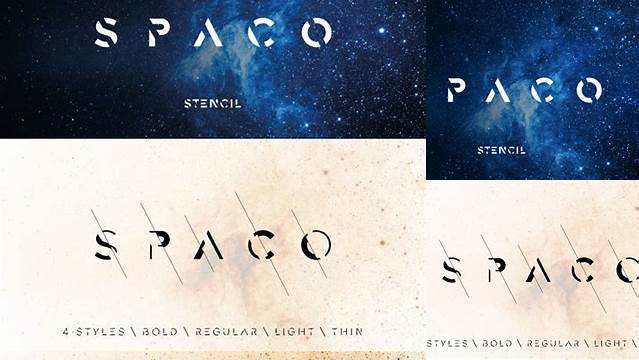
Hey guys! Are you on the hunt for a cool and unique font to spice up your designs? Look no further! In this article, we're diving deep into the world of the Spaco Stencil font, a fantastic typeface that can add a touch of modern flair to any project. We'll explore everything from what makes this font so special to where you can snag it for free. So, buckle up and let's get started!
What is Spaco Stencil Font?
The Spaco Stencil font is a contemporary typeface characterized by its distinctive stencil design. This means that the letters have gaps or breaks in their forms, giving them a unique, industrial, and slightly futuristic look. The font is incredibly versatile, making it a popular choice for a wide range of applications, from branding and advertising to posters and digital designs. Its clean lines and bold appearance ensure readability while adding a touch of creativity.
The Appeal of Stencil Fonts
Stencil fonts, like Spaco, have a rich history and a timeless appeal. They evoke a sense of practicality and functionality, reminiscent of military stencils and industrial markings. This aesthetic makes them particularly well-suited for projects that aim to convey strength, durability, or a sense of history. However, their modern interpretations, like Spaco, also lend themselves beautifully to contemporary designs that require a touch of edginess or innovation.
Why Choose Spaco Stencil Font?
Choosing the right font can make or break a design. The Spaco Stencil font stands out for several reasons. First, its clean and modern design ensures legibility, even in smaller sizes. Second, its unique stencil style adds a distinctive visual element that can help your designs grab attention. Third, it’s versatile enough to work in various contexts, from headlines and logos to body text and captions. Finally, the fact that you can find it for free makes it an incredibly accessible option for designers of all levels.
Integrating Spaco Stencil Font in Your Designs
- Pair it with a clean sans-serif: To balance the boldness of the stencil design, consider pairing Spaco with a clean and simple sans-serif font for body text or secondary elements.
- Use it for headlines and titles: Spaco's distinctive look makes it perfect for headlines, titles, and other prominent text elements.
- Experiment with colors: Play around with different color combinations to see how Spaco looks in various contexts. Bold colors can enhance its industrial feel, while softer tones can give it a more modern and sophisticated vibe.
- Incorporate it into logos: Spaco can be a great choice for logos, especially for brands that want to convey strength, innovation, or a sense of history.
Conclusion: Unleash Your Creativity with Spaco Stencil Font
So, there you have it, guys! The Spaco Stencil font is a fantastic typeface that can add a unique and modern touch to any project. Whether you're working on branding, web design, print materials, or digital art, this font is a versatile and accessible choice. Remember to download it from a reputable source, understand the licensing terms, and experiment with different ways to integrate it into your designs. Happy creating!